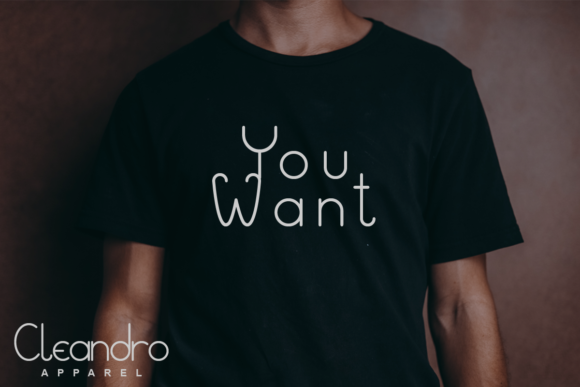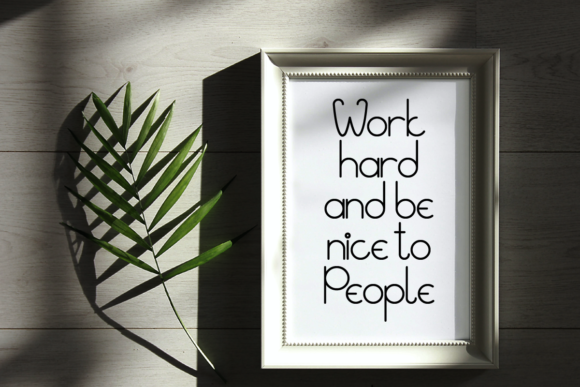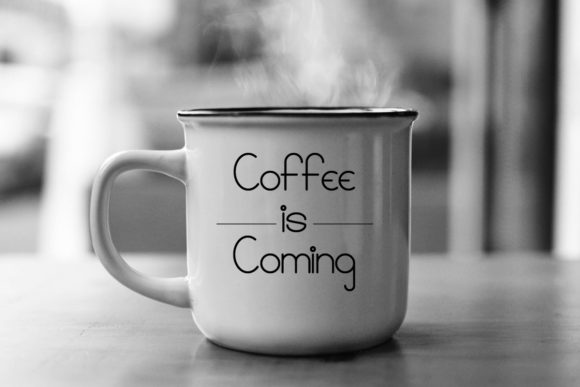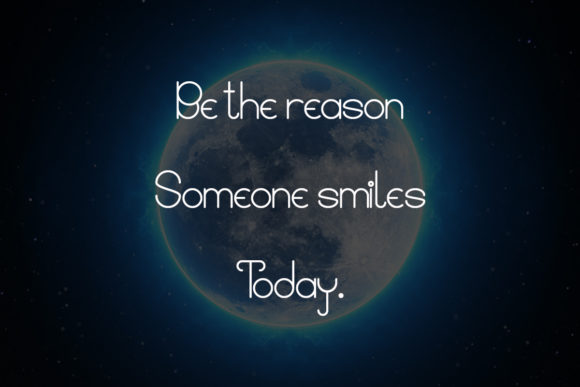
Cleandro Font: A Simple yet Powerful Display Font for Your Creative Projects
In the world of typography, fonts play a crucial role in bringing creative ideas to life. Among the numerous fonts available, Cleandro stands out as a simple and round lettered display font that has captured the hearts of designers and crafters alike. With its friendly style, Cleandro matches a wide variety of creative ideas, making it an ideal addition to your design arsenal.
What Makes Cleandro Font Special?
Cleandro is a unique font that boasts a distinctive round lettered style, which sets it apart from other display fonts. Its simplicity and friendliness make it an excellent choice for designers looking to add a personal touch to their projects. Whether you’re working on a logo, branding materials, or marketing collateral, Cleandro’s rounded edges and smooth curves create a visually appealing effect that draws the viewer’s attention.
Key Features of Cleandro Font
- Simple and Round Lettered Style: Cleandro’s unique design makes it perfect for creating visually appealing headings, titles, and captions.
- Friendly Style: The font’s friendly demeanor makes it suitable for a wide range of creative projects, from playful designs to more professional applications.
- High Versatility: Cleandro matches a wide variety of creative ideas, making it an excellent addition to your font library.
- Easy to Read: The font’s clear and legible design ensures that your message is conveyed effectively, even at smaller font sizes.
How to Use Cleandro Font in Your Designs
Cleandro is an incredibly versatile font that can be used in a variety of design projects. Here are some ideas to get you started:
- Logos and Branding: Use Cleandro to create a memorable logo or add a personal touch to your branding materials.
- Marketing Collateral: Add Cleandro to your marketing materials, such as brochures, flyers, and posters, to create visually appealing headings and titles.
- Social Media Graphics: Use Cleandro to create engaging social media graphics, such as Facebook posts, Instagram stories, and Twitter headers.
- Web Design: Incorporate Cleandro into your web design projects to add a touch of personality to your website’s headings and titles.
Tips for Getting the Most Out of Cleandro Font
To get the most out of Cleandro, here are some tips to keep in mind:
- Experiment with Font Sizes: Cleandro looks great at various font sizes, so don’t be afraid to experiment to find the perfect size for your design.
- Pair with Other Fonts: Combine Cleandro with other fonts to create a unique and visually appealing typography scheme.
- Use Color Effectively: Use color to make your text stand out and add visual interest to your design.
In conclusion, Cleandro is a simple yet powerful display font that can add a touch of personality to your designs. With its friendly style and high versatility, Cleandro matches a wide variety of creative ideas, making it an excellent addition to your font library. Whether you’re a designer, crafter, or DIY enthusiast, Cleandro is sure to become a go-to font in your creative projects.